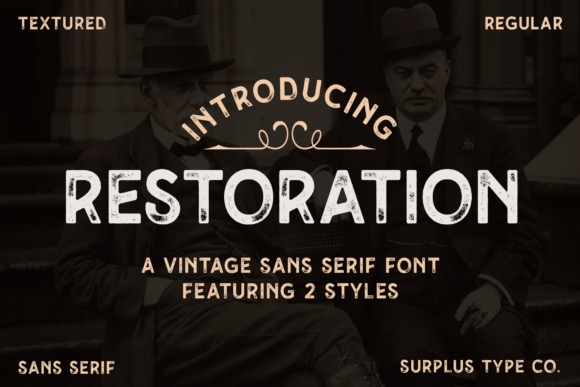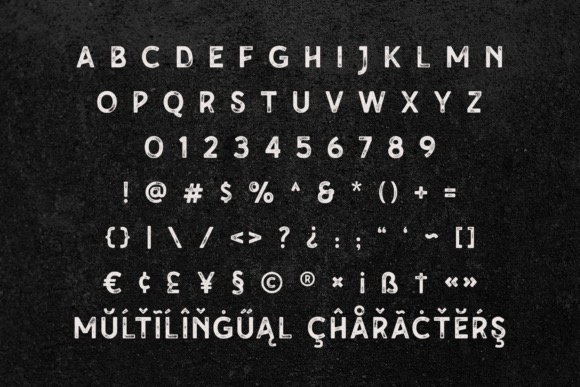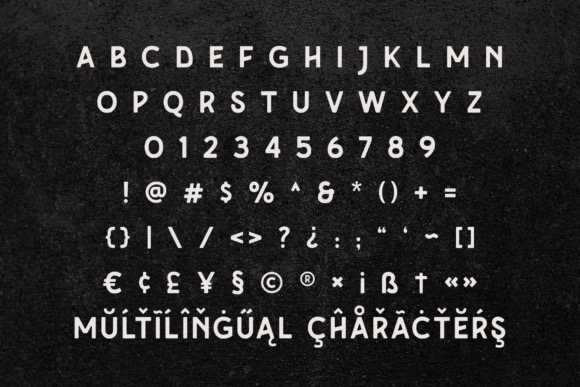
Restoration is a modern vintage sans serif font that was created and released by Surplus Type Co.. is a two-style sans serif font with a rustic vintage aesthetic. Its angled bars give it a unique appearance and sets it apart from other vintage fonts.
You’ll get a textured version and a clean version, so you’ll be ready for any project.
This vintage font is great for logos & branding, titles, web design, marketing, advertising & much more!
Restoration Vinatage Sans Font
Designer, Publisher: Surplus Type Co.